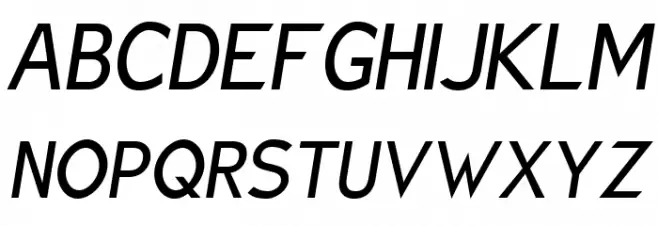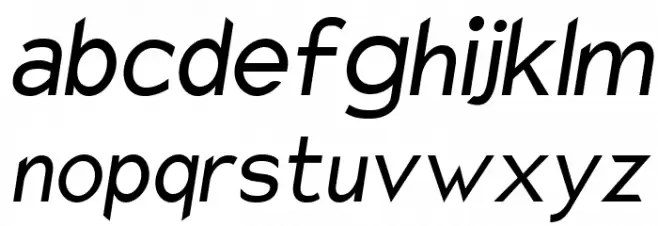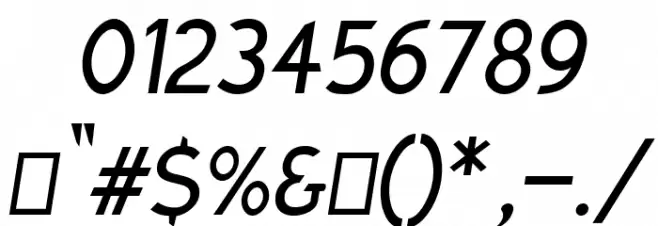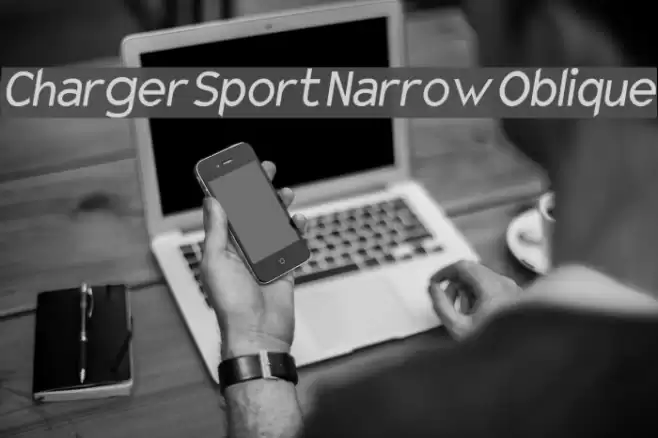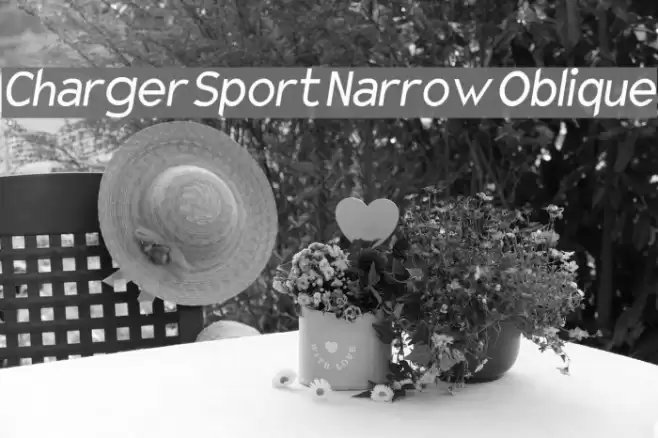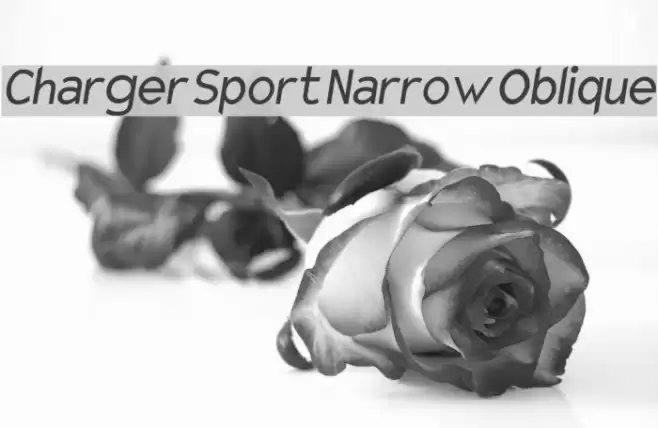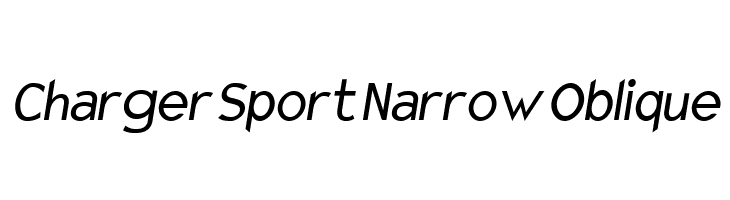
Charger Sport Narrow Oblique
This font exhibits a sleek and modern design with a distinctly oblique style, giving it a dynamic and forward-leaning appearance. The characters are narrow, contributing to a condensed look that is both stylish and efficient in space usage. The strokes are consistent and smooth, with a medium contrast that enhances readability without sacrificing its contemporary aesthetic. The font's clean lines and subtle curves make it versatile for various applications, from digital interfaces to print media. Its energetic and sporty vibe is ideal for projects that require a sense of motion and modernity.
A sleek, modern, and oblique font with a narrow, dynamic style.
- Proposed Projects: Ideal for sports branding, dynamic advertisements, modern web design, and tech-related projects.
- Width: Condensed
- Use Case: Headlines, Logos, Digital interfaces